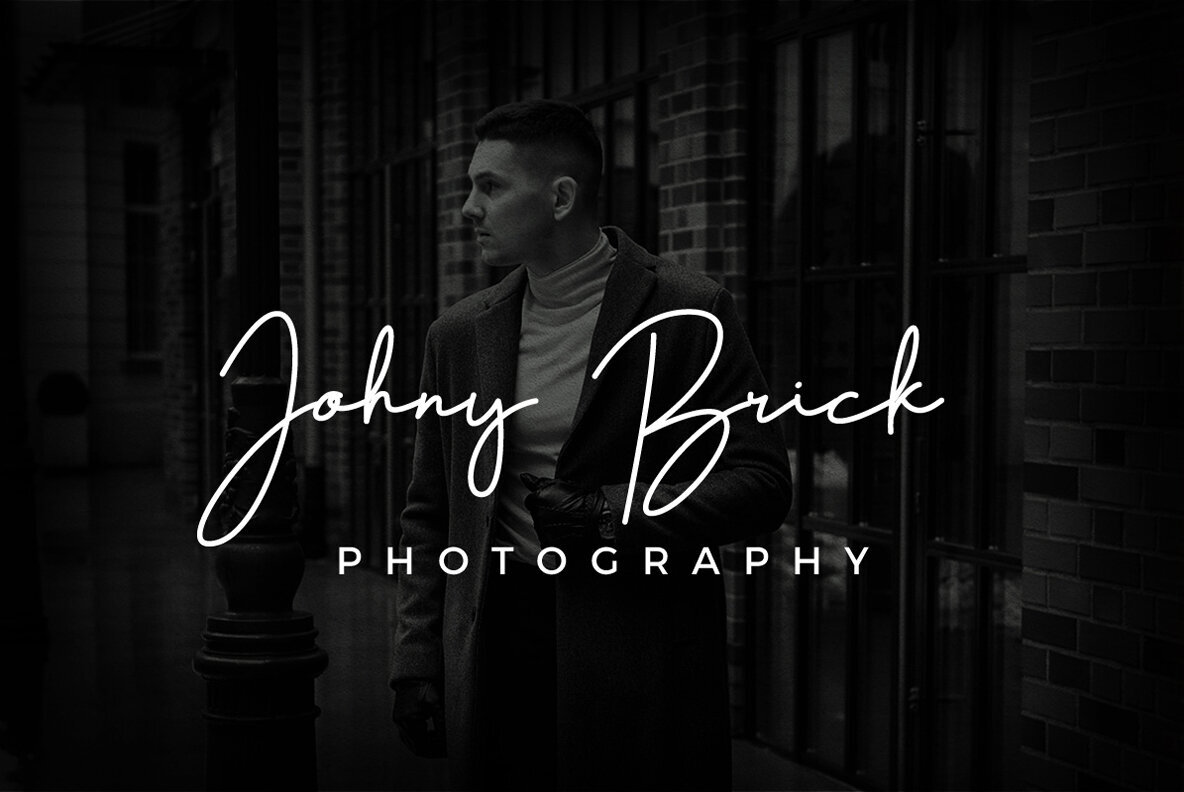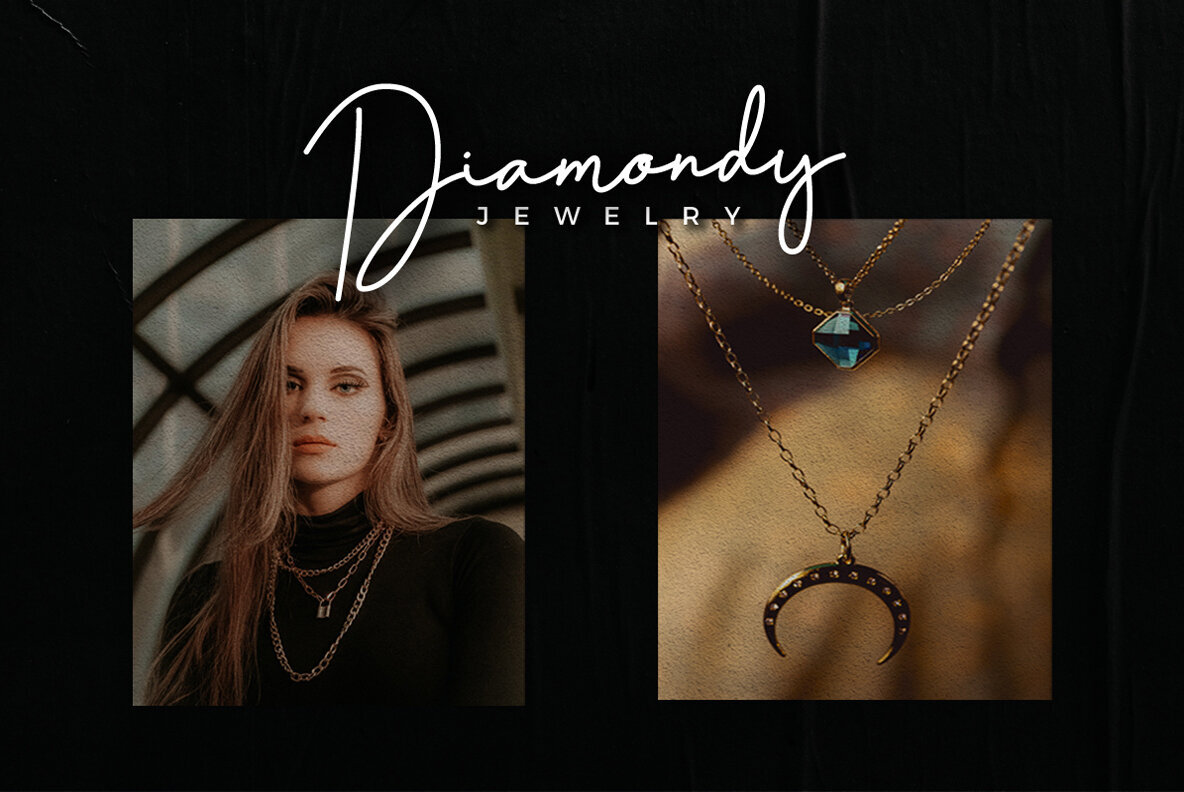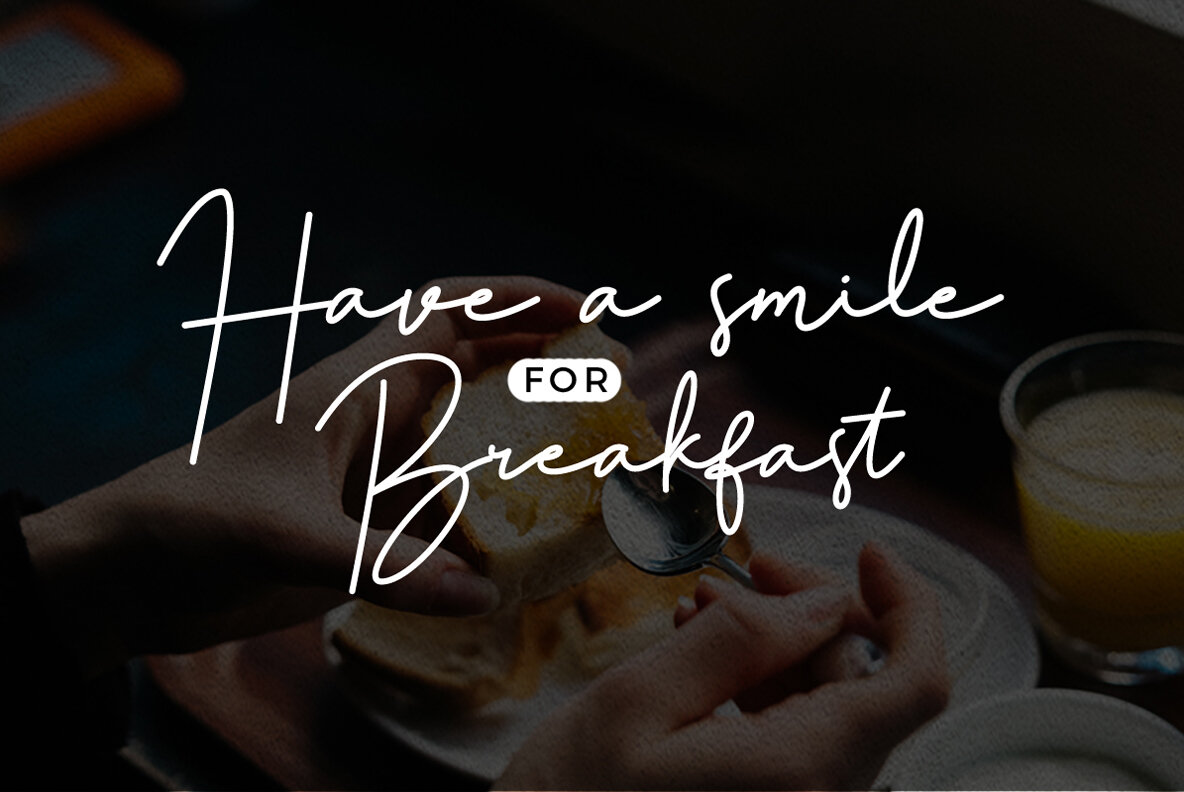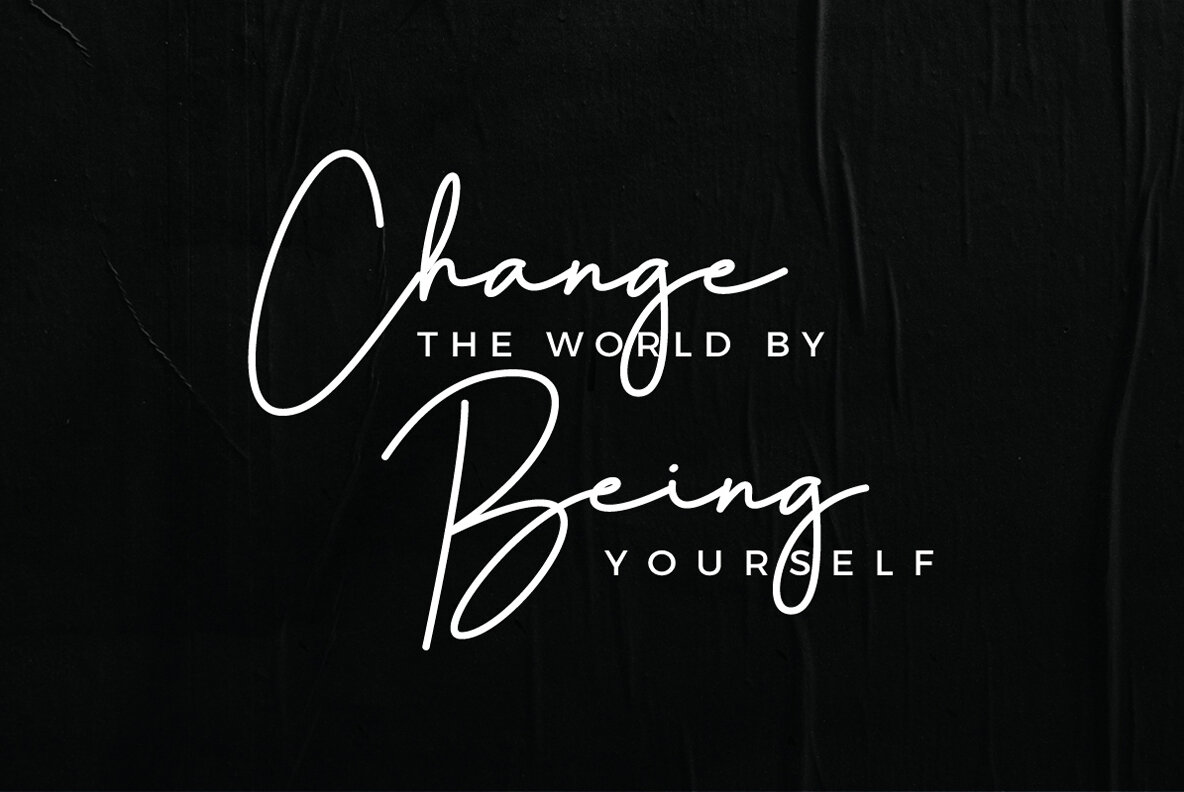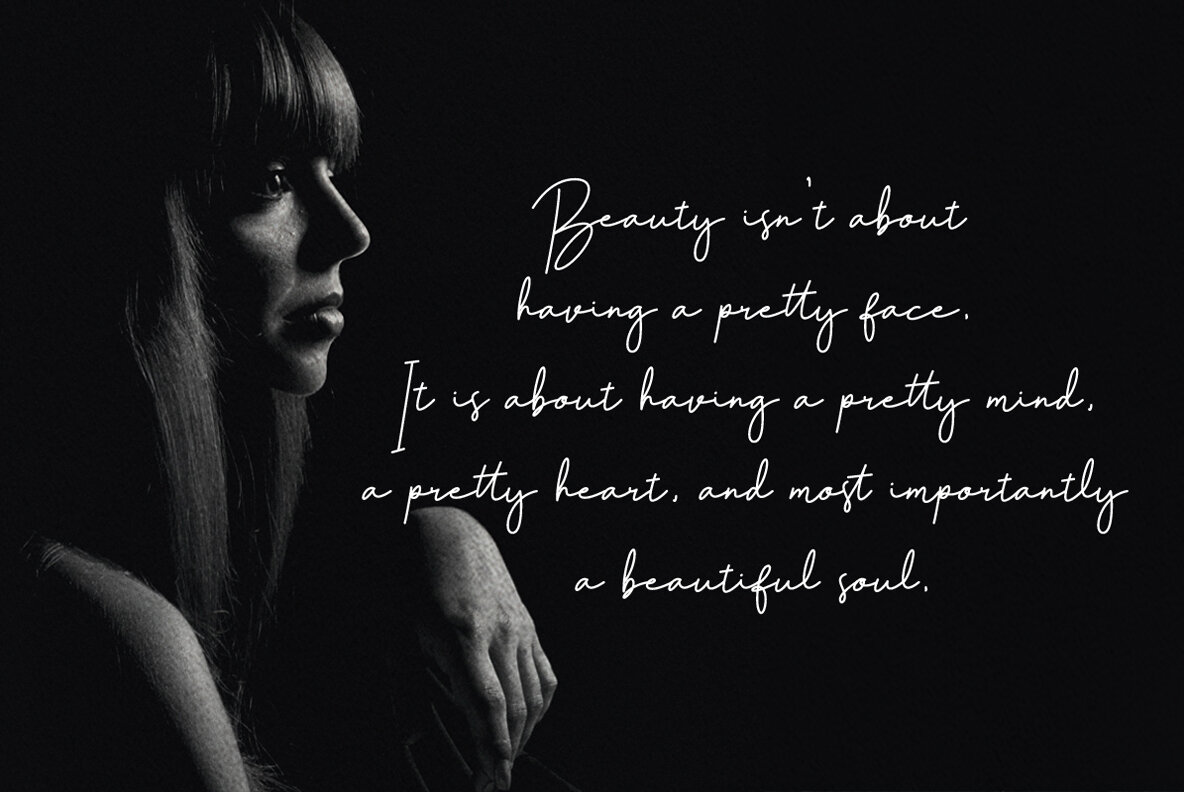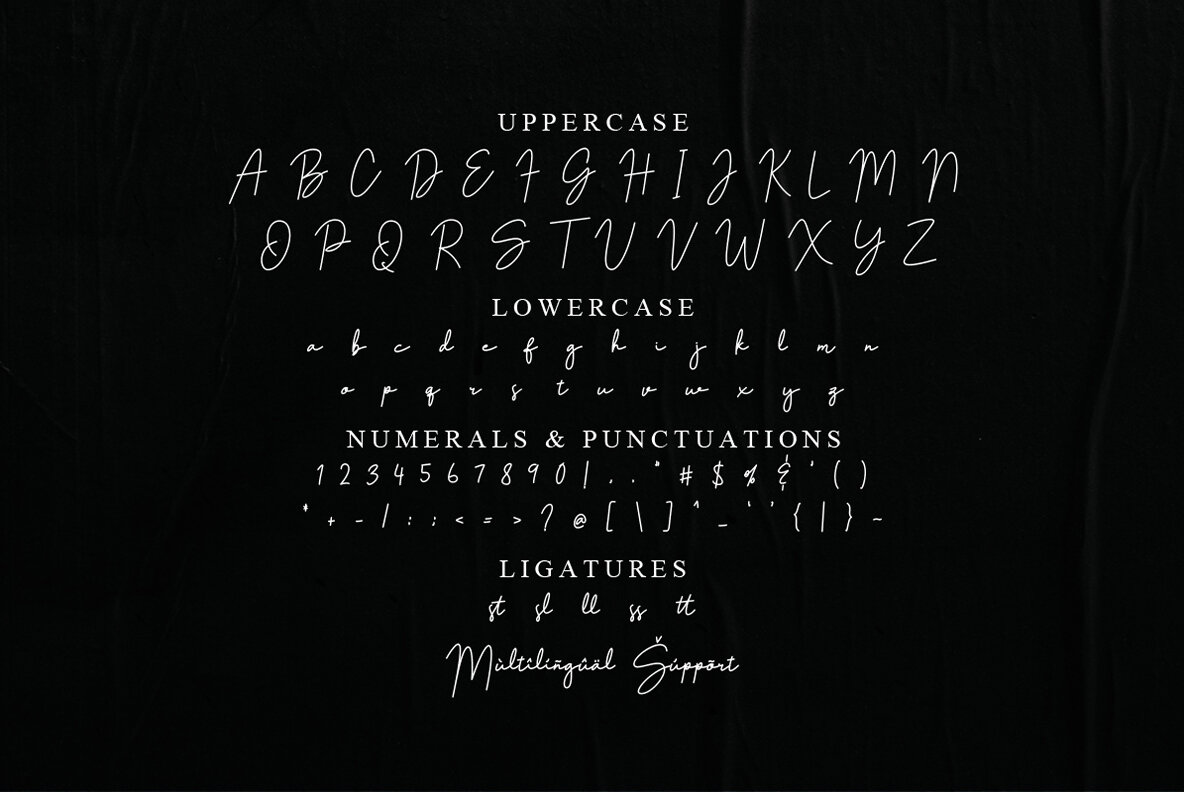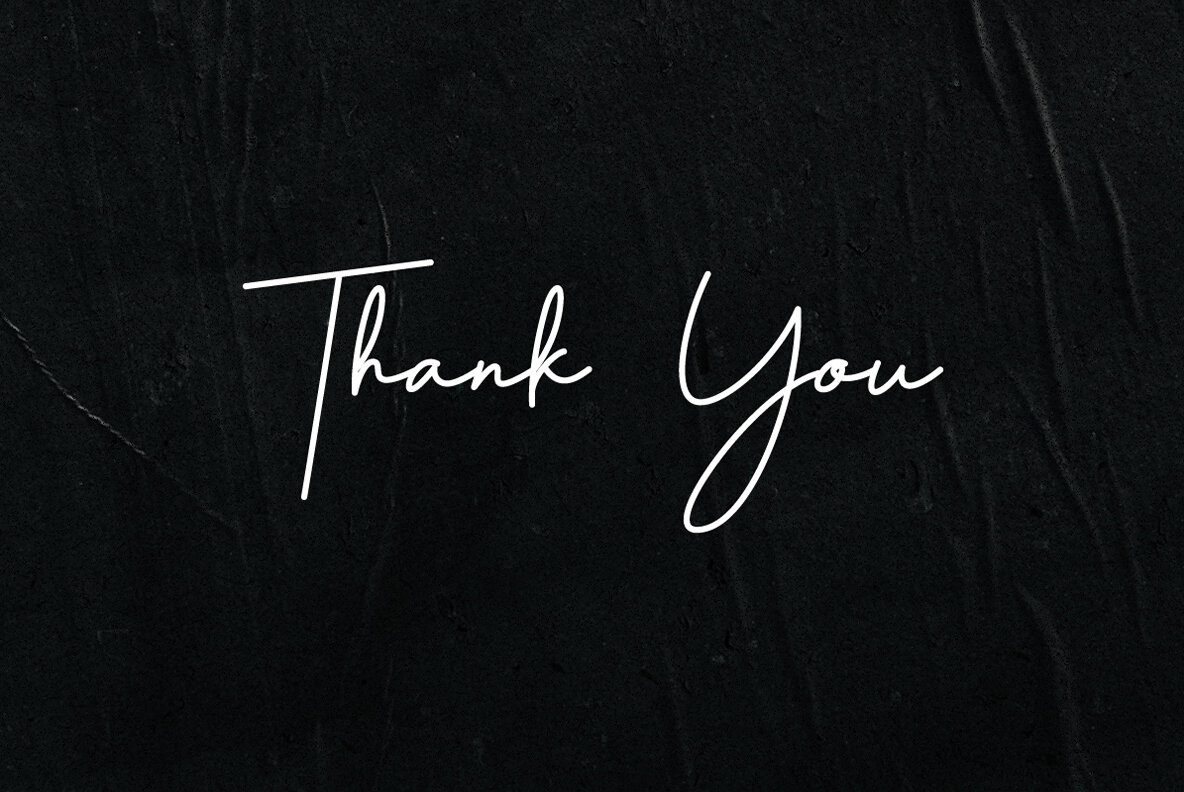
Amadgone
Amadgone is a stylish signature this font looks elegant, natural, stylish and perfect for any awesome projects that need handwriting taste.
Features: uppercase, lowercase, symbol, number, ligature, and also support multi language.
Amadgone is perfect for photography, watermark, social media posts, advertisements, logos & branding, invitation, product designs, label, stationery, wedding designs, product packaging, special events or anything that need handwriting taste.